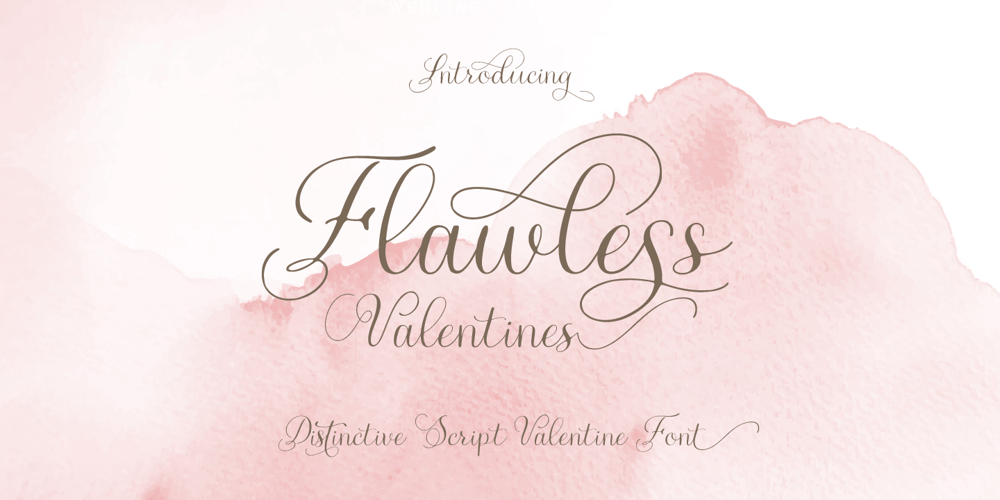
Flawless Valentines Font Family was designed by Alde Saputro and published by Aldedesign. Flawless Valentines contains 2 styles and family package options. Flawless Valentines is a beautiful and light handwritten font. Its unique feel and stunning impact will add a luxury spark to any design project you wish to create!This font is PUA encoded, which means you can access all of the amazing glyphs and ligatures with ease!Each Font Has: Stylish modern handwritten script Beautiful Swash (Ending tail) Beautiful Titling (Beginning tail) Special Ligatures Multilingual Support